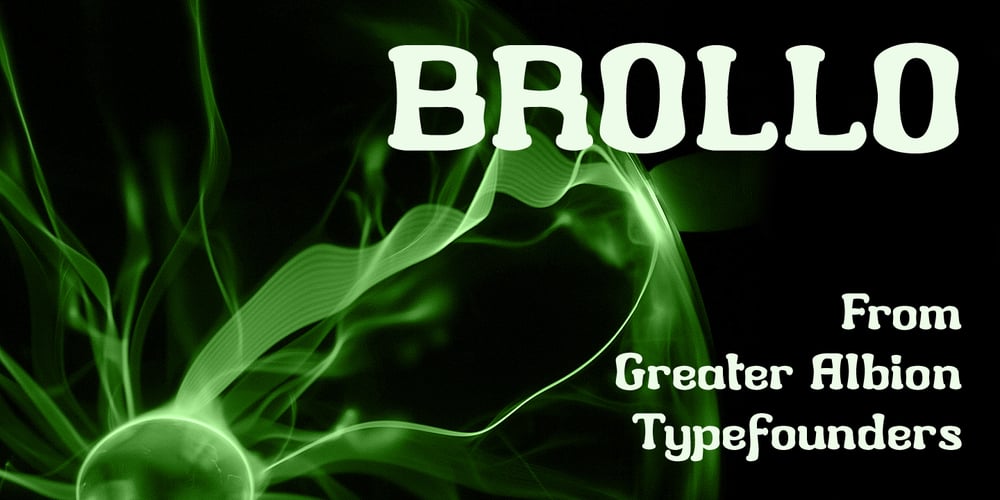
Brollo Font Family was designed by Paul James Lloyd and published by Greater Albion Typefounders. Brollo contains 1 styles and family package options. Brollo is a chunky display face full of the spirit of the 60s and 70s. Its bold character makes it ideal for poster work, and for anywhere that the point really needs to be driven home. The letter forms have been designed to work well either used conventionally or exclusively in capitals. We recommend use in combination with strong patterns, psychedelic colours and anything else outrageous you can think of.